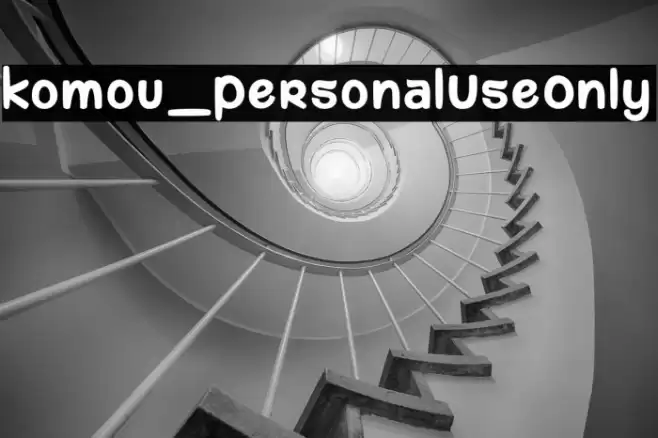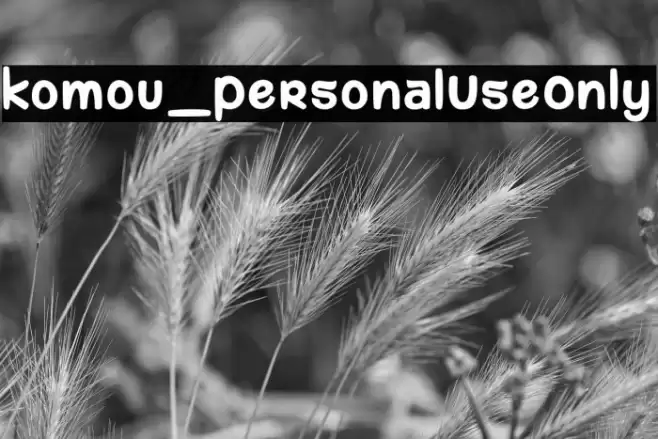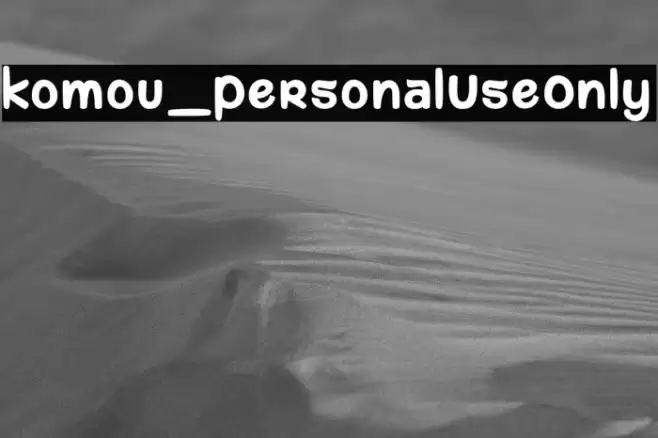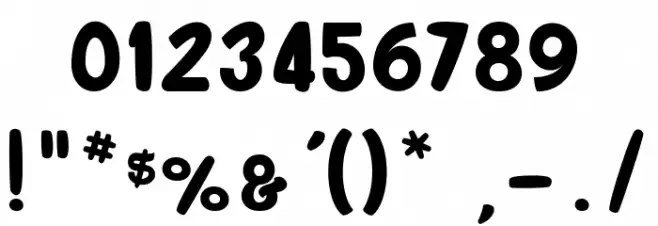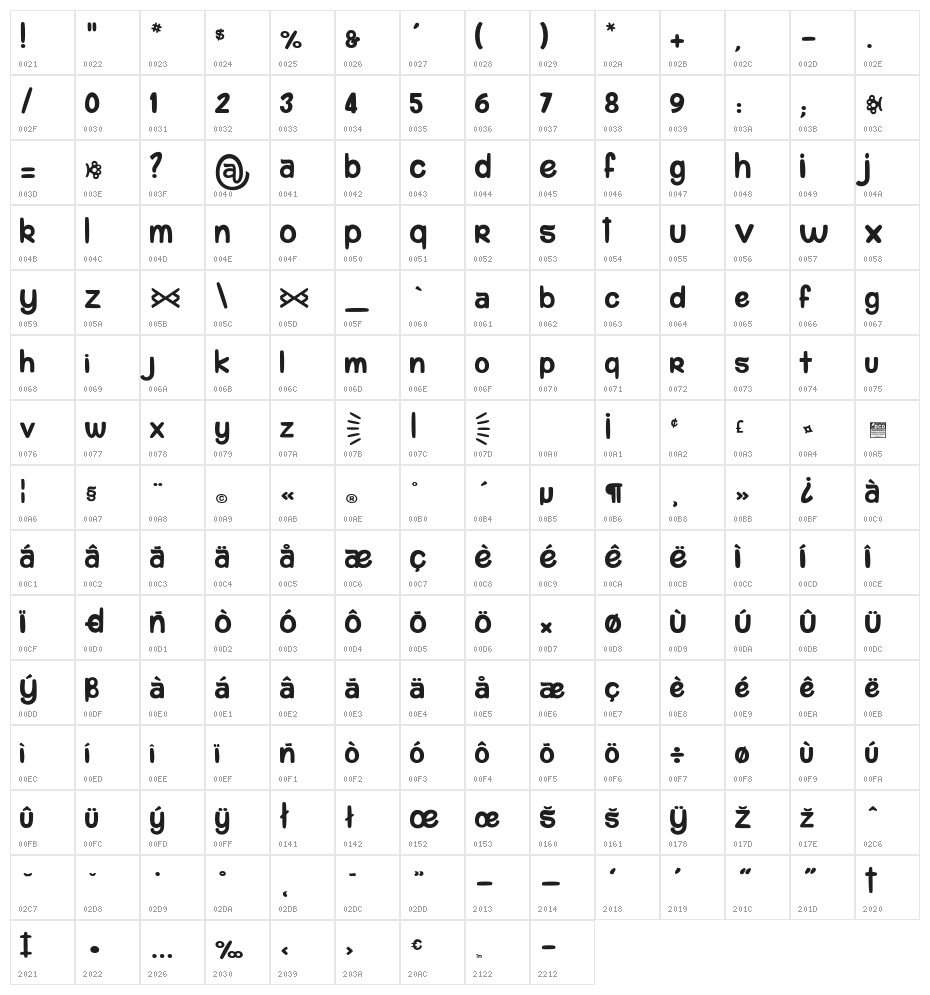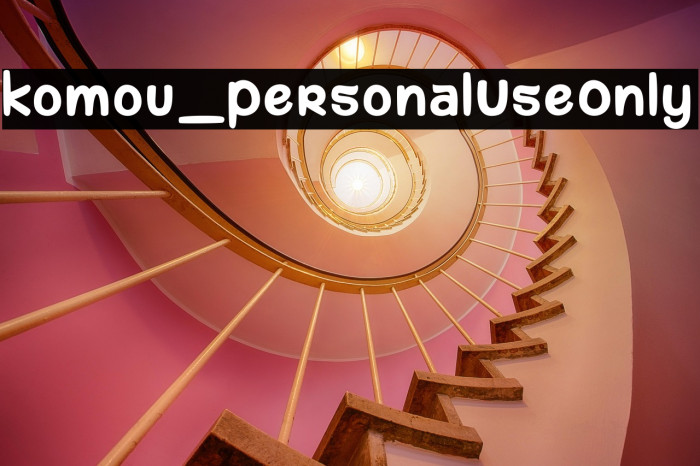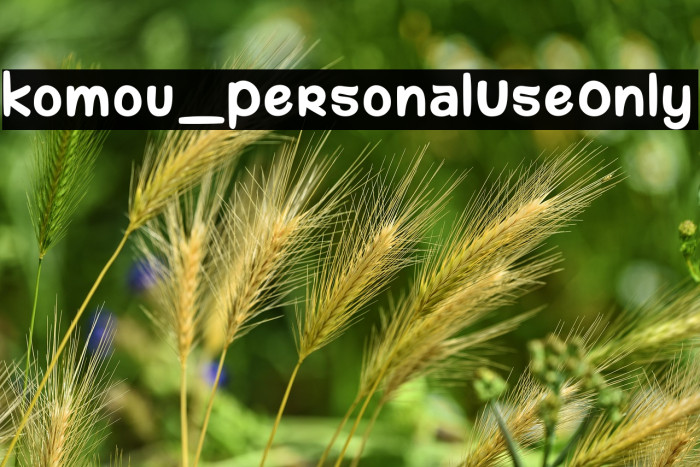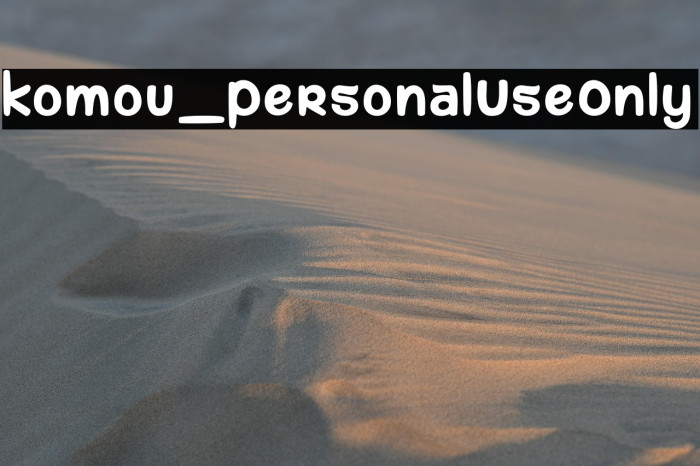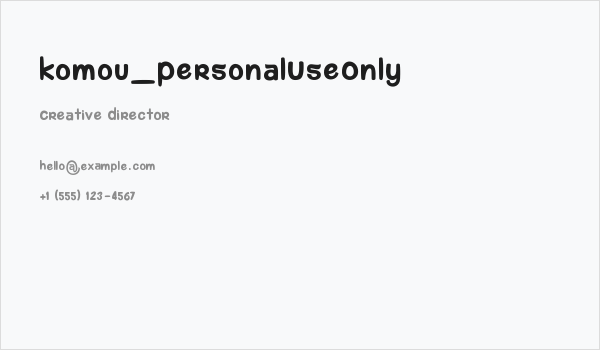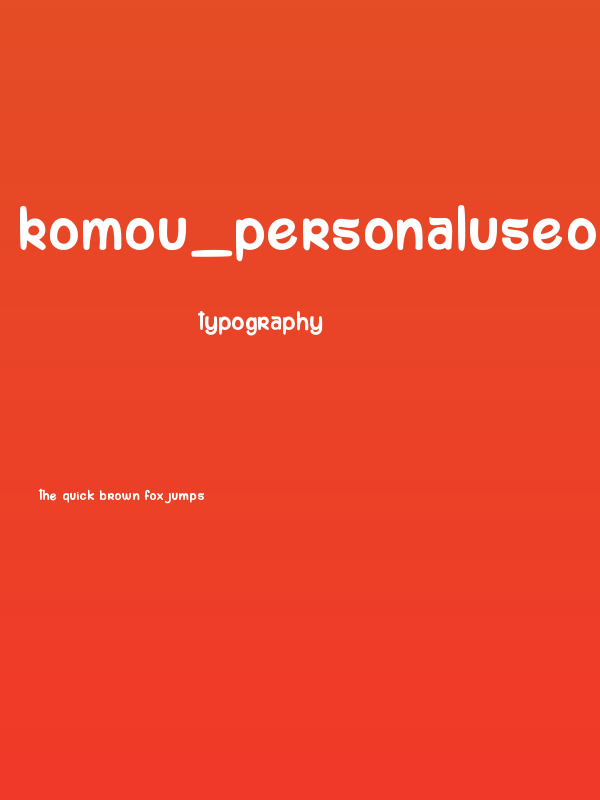
komou_PersonalUseOnly Font
komou_PersonalUseOnly Description
This playful and rounded font features a bold and friendly appearance, characterized by its smooth curves and uniform stroke width. The letters are slightly condensed, giving it a compact look while maintaining readability. The font's whimsical style is evident in its soft edges and the consistent thickness of the strokes, which adds a sense of warmth and approachability. It includes a full set of uppercase and lowercase letters, numbers, and a variety of special characters, making it versatile for different uses. The overall design is modern yet casual, suitable for projects that require a touch of fun and informality.
A playful, rounded font with a bold and friendly appearance from Regular fonts.
- Proposed Projects: Ideal for children's books, playful branding, casual invitations, and social media graphics.
- Overall Style: Modern, Casual